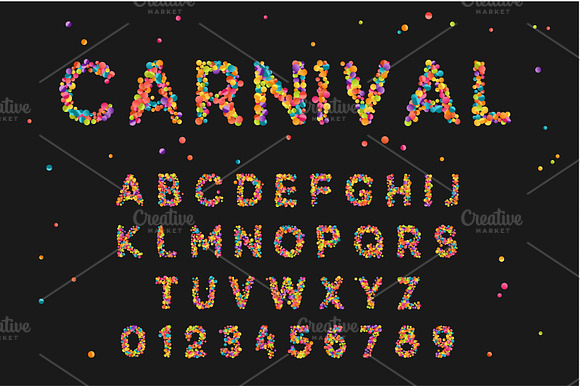
Font alphabet of colored confetti.
Font alphabet of colored confetti. Festive carnival letters, birthday, Brazilian festival of paints. Set holiday symbol. Celebrate anniversary numbers. Vector isolated on black background
Font alphabet of colored confetti. by Modern vector fits naturally into Branding, posters, packaging, typography.